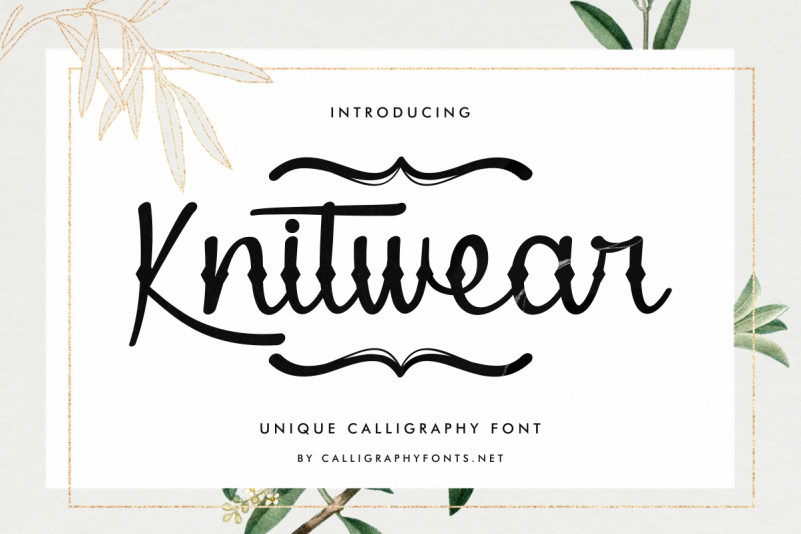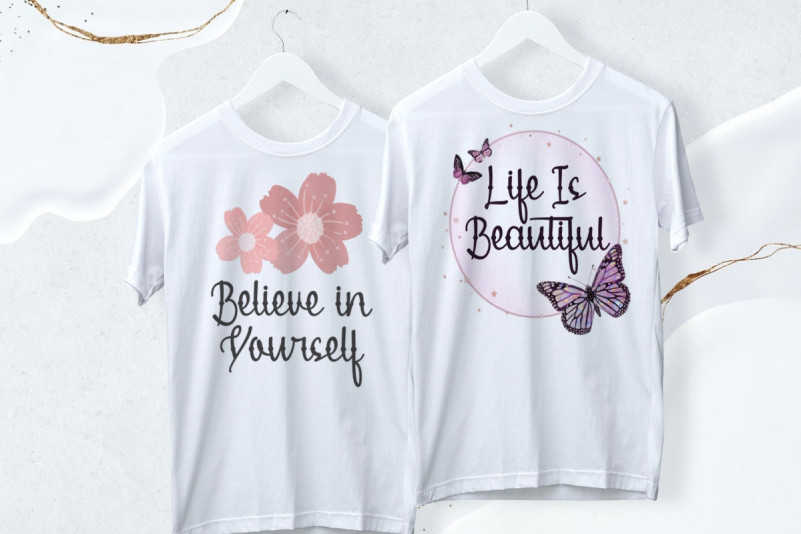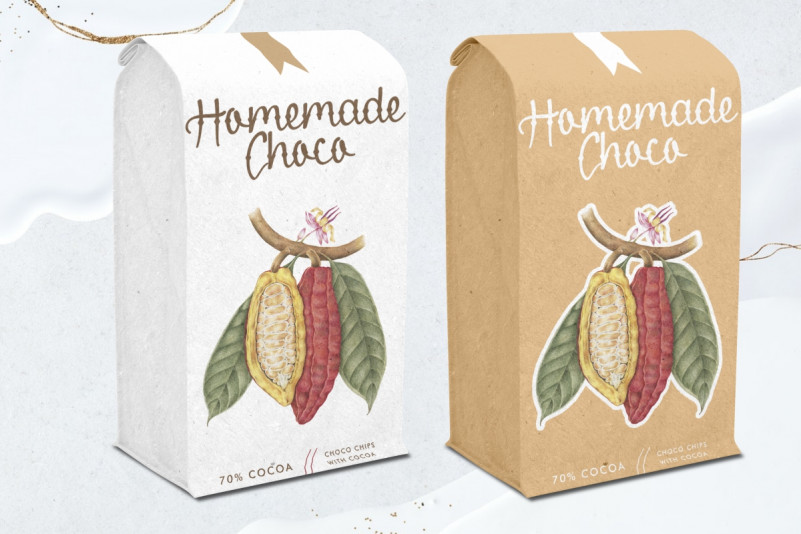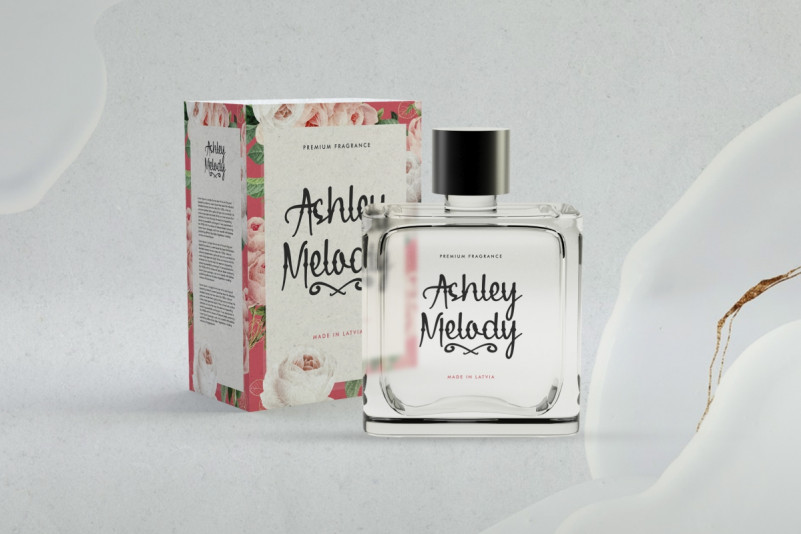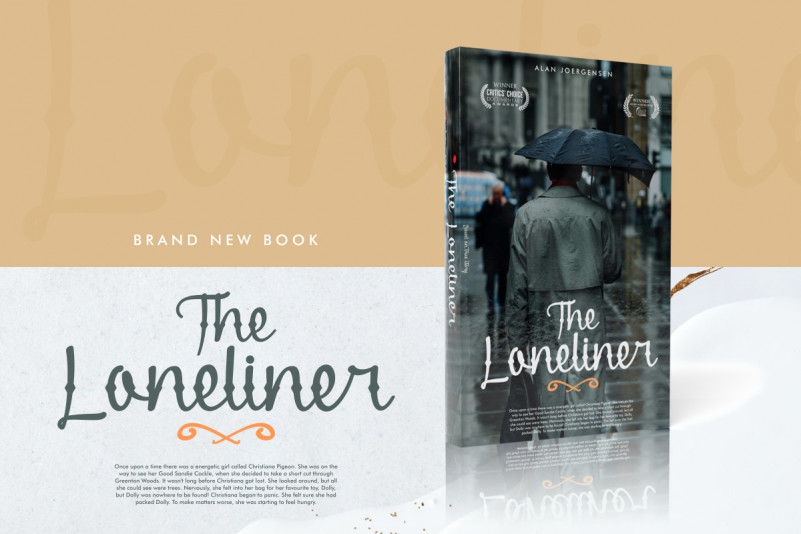
Knitwear Font
Knitwear Script Font
This is a unique Handwriting font inspired from knitting and crafting handcraft. It can be used for many purpose from Fun to Brandings. The Knitwear Font will be awesome for clothing, events, cosmetic, beauty, spa, brands, packaging, invitation, games. etc